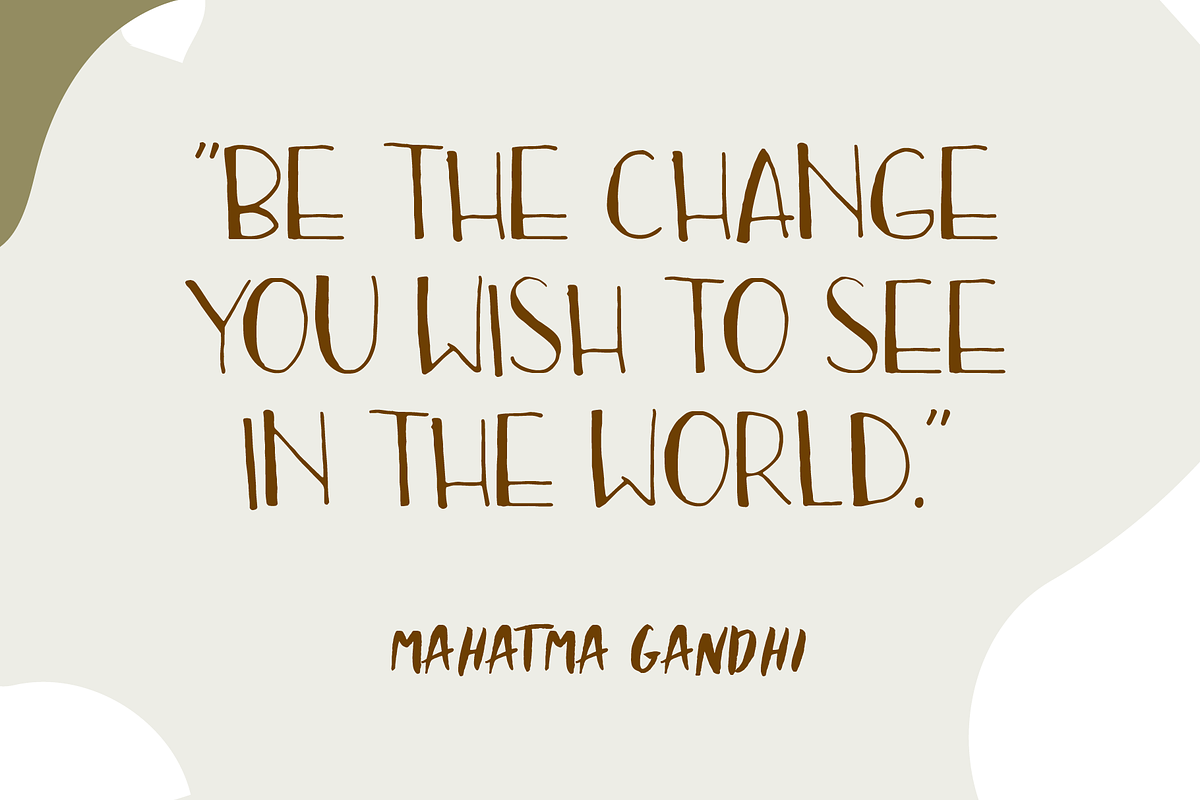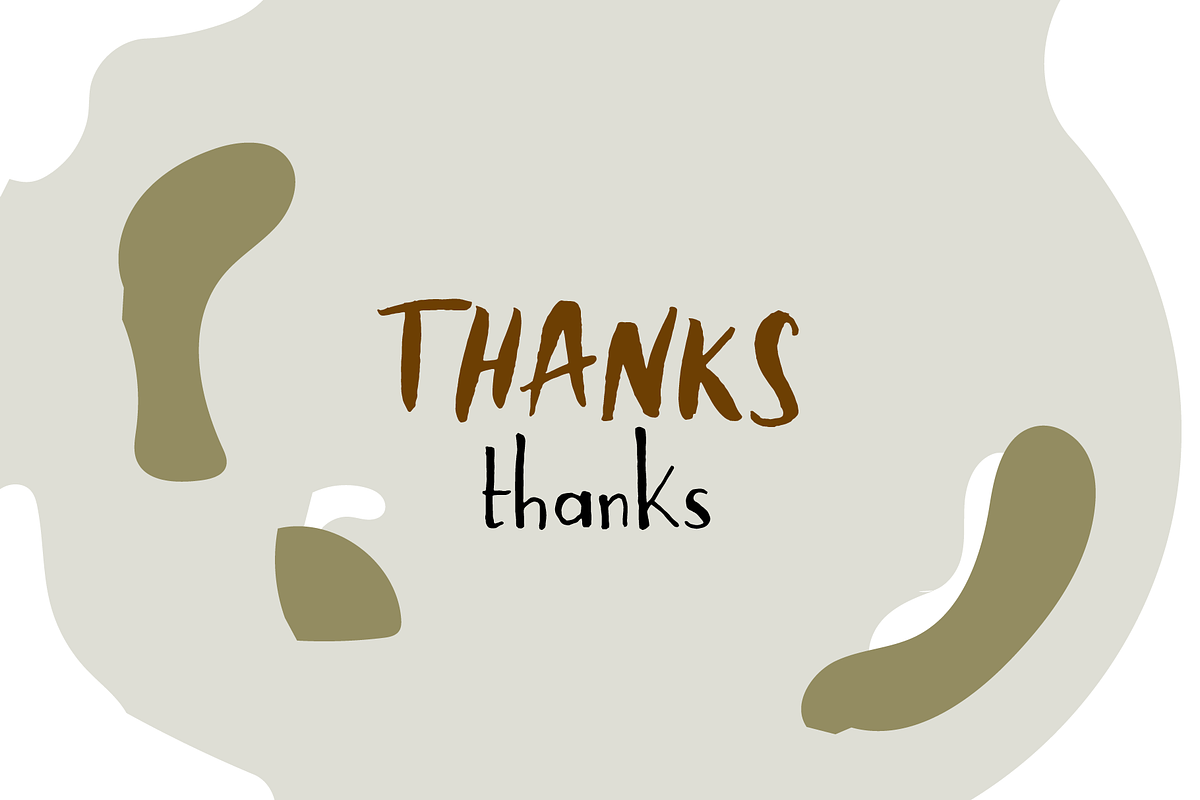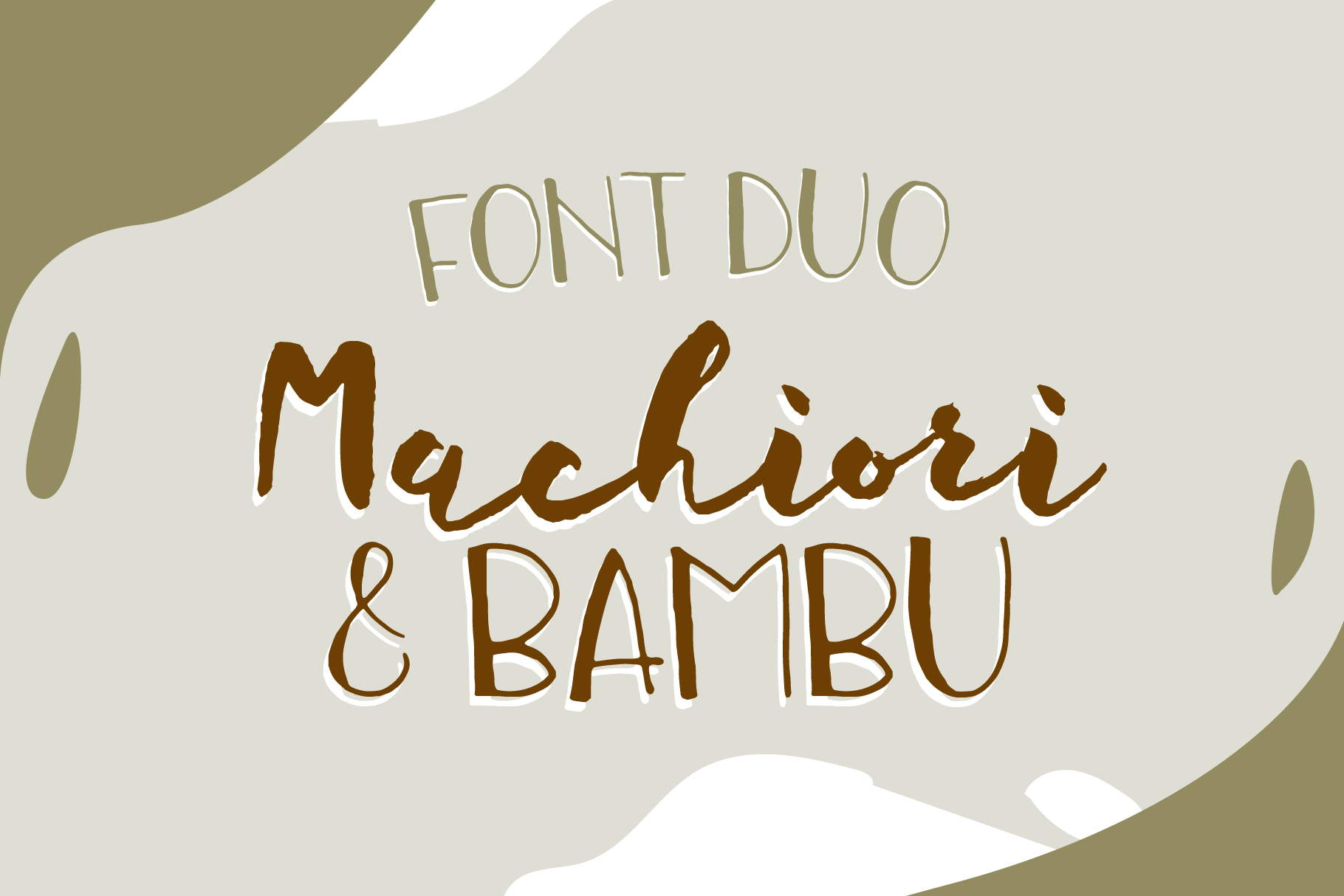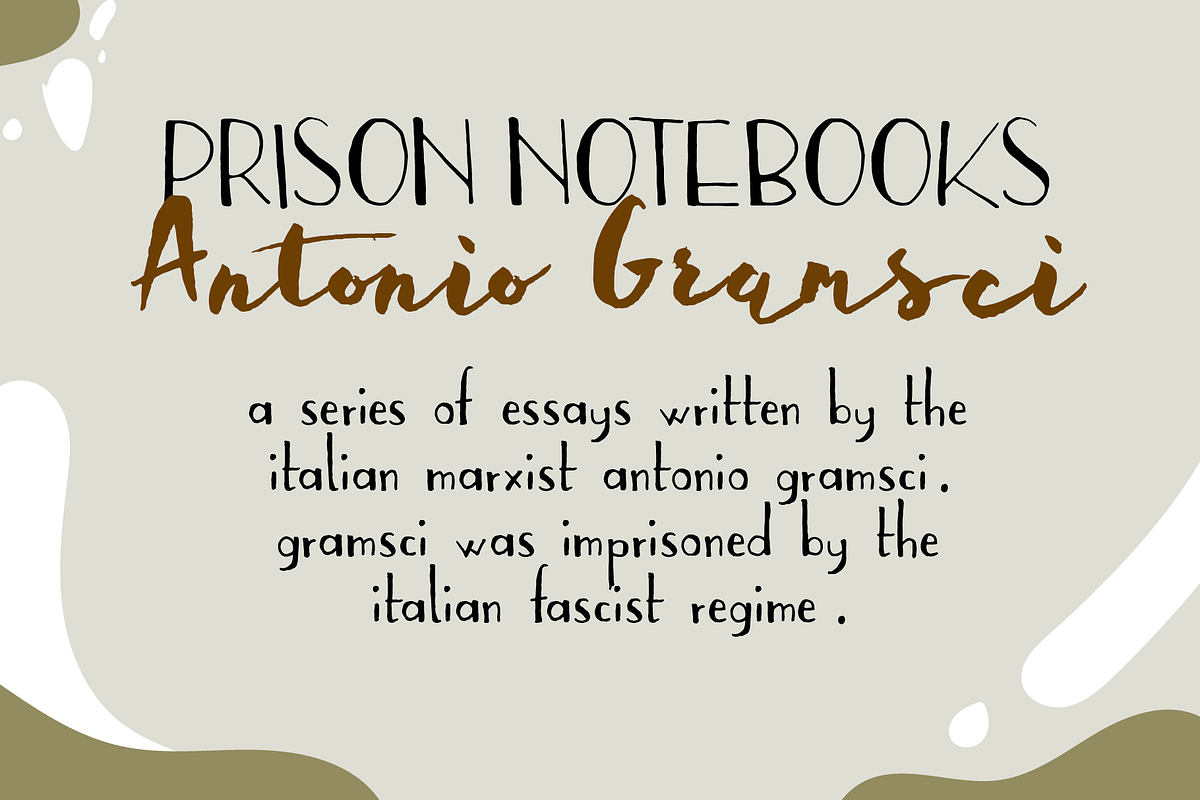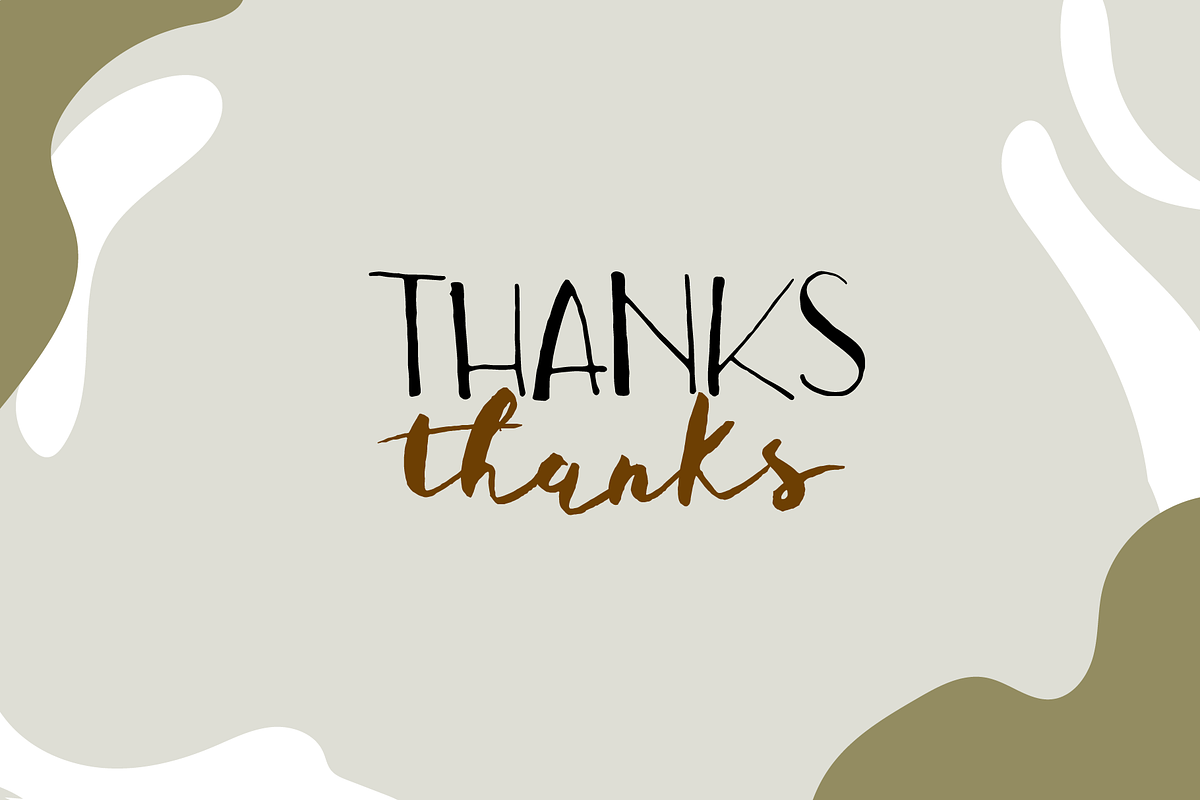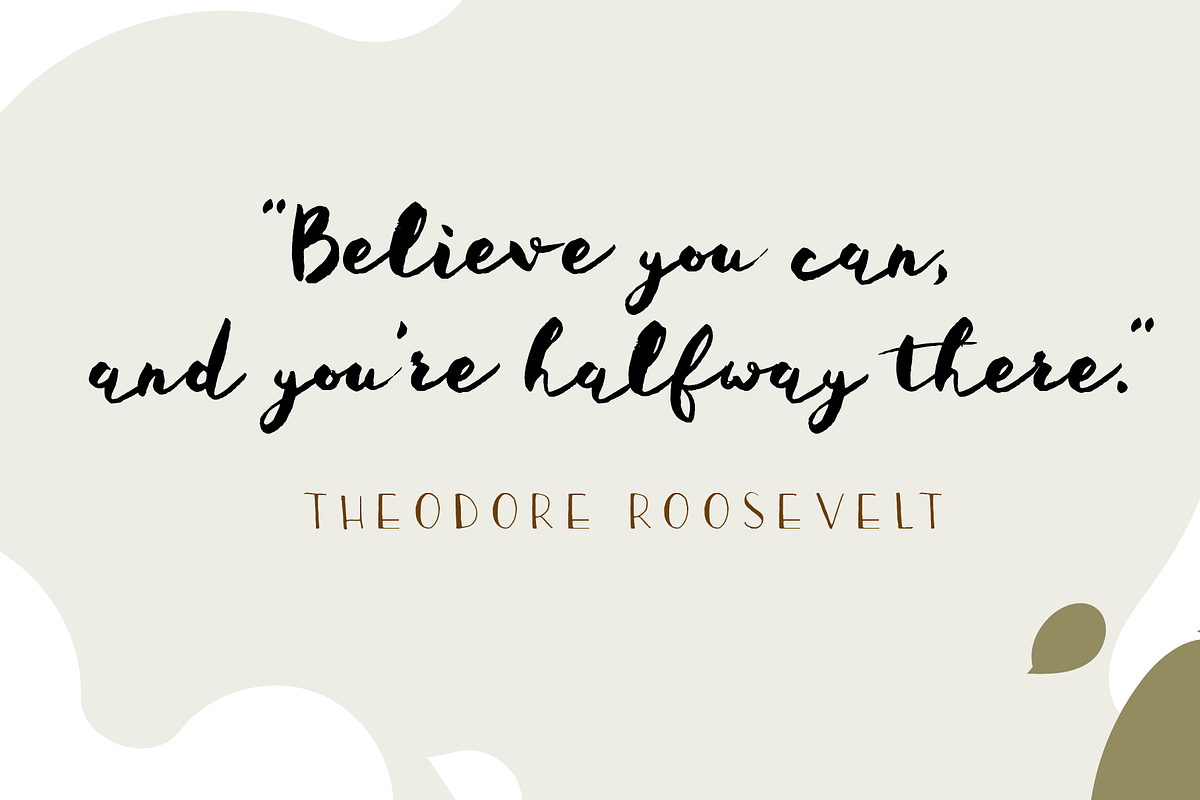
Machiori and Bambo - Font duo
Introducing Machiori and Bambo, a font duo that combines handwriting calligraphic and playful serif, perfect for adding a charming touch to your designs. These font offers versatile options to enhance your design projects.
Ideal for applications such as magazines, logos, branding, ebooks, clothing, and quotes, Machiori and Bambo provides a comprehensive solution for various creative endeavors.